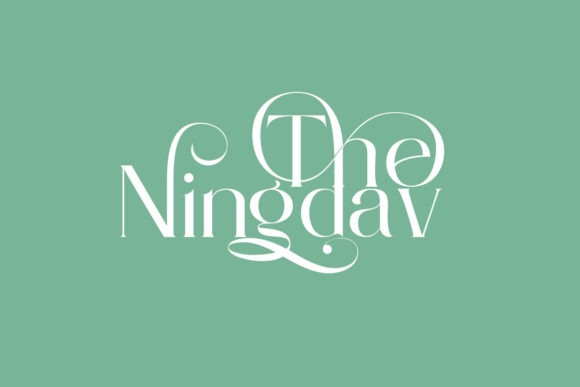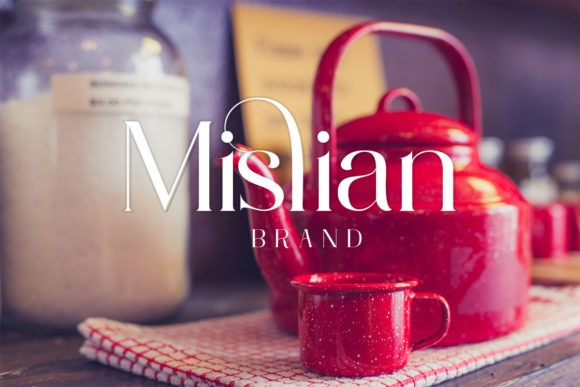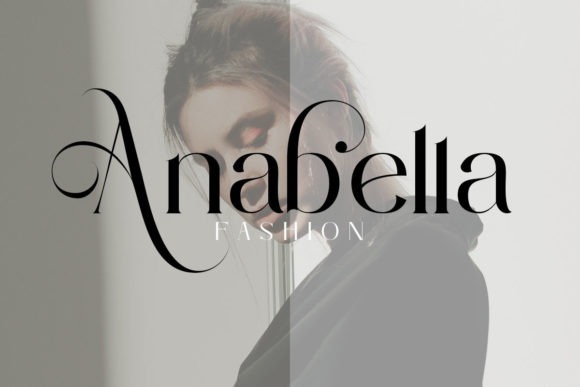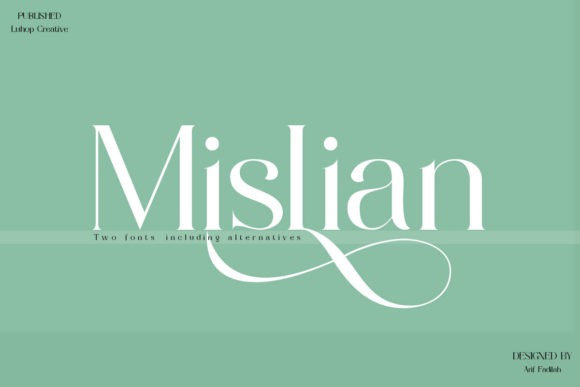
Mislian Font
Mislian Serif Font is a stylish and rich serif typeface created by LuhopCreative with letters that seem to dance and twist harmoniously together to form unique and elegant typography designs. This font is PUA encoded which means you can access all glyphs and swashes with ease!